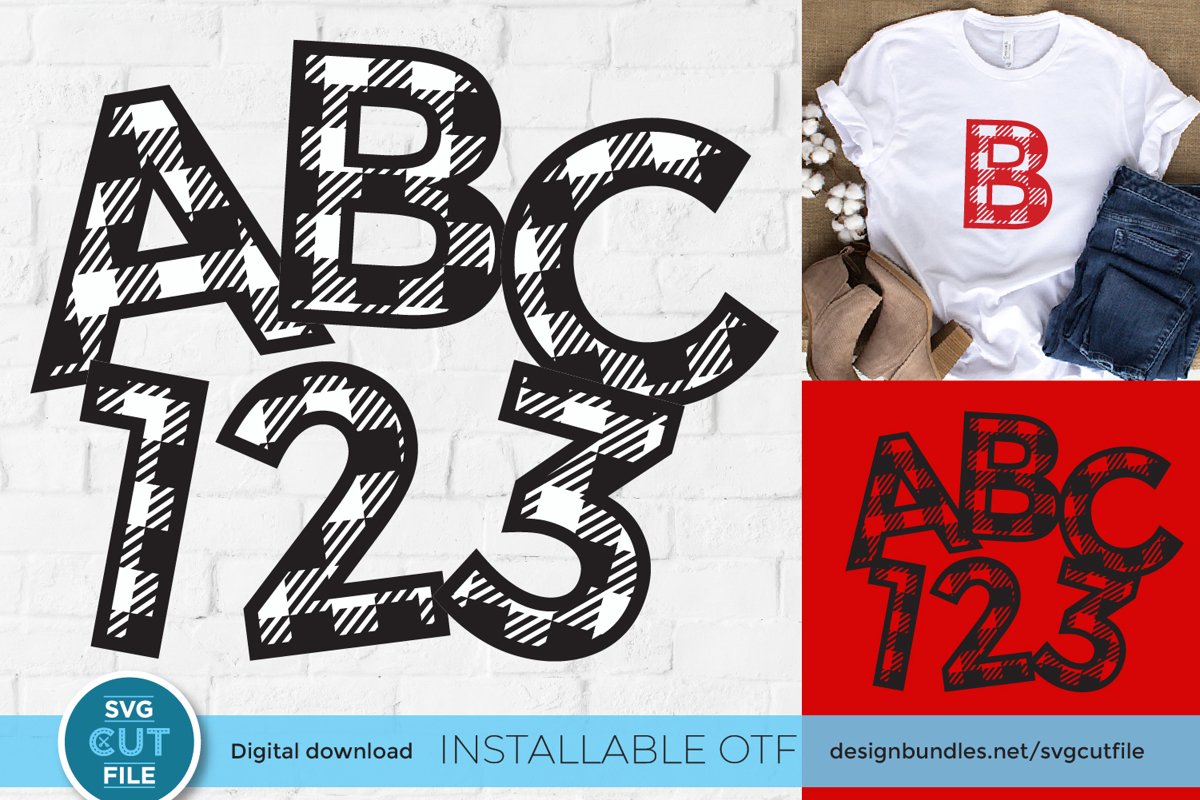
Buffalo Plaid installable OTF font- a gingham pattern font
26 plaid letters, uppercase
26 plaid letters, lowercase
10 numbers
14 symbols (see pictures)
Please note: Each letter is black, but can easily be changed to any color.